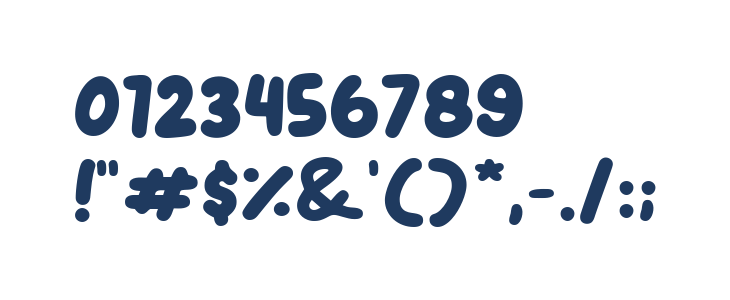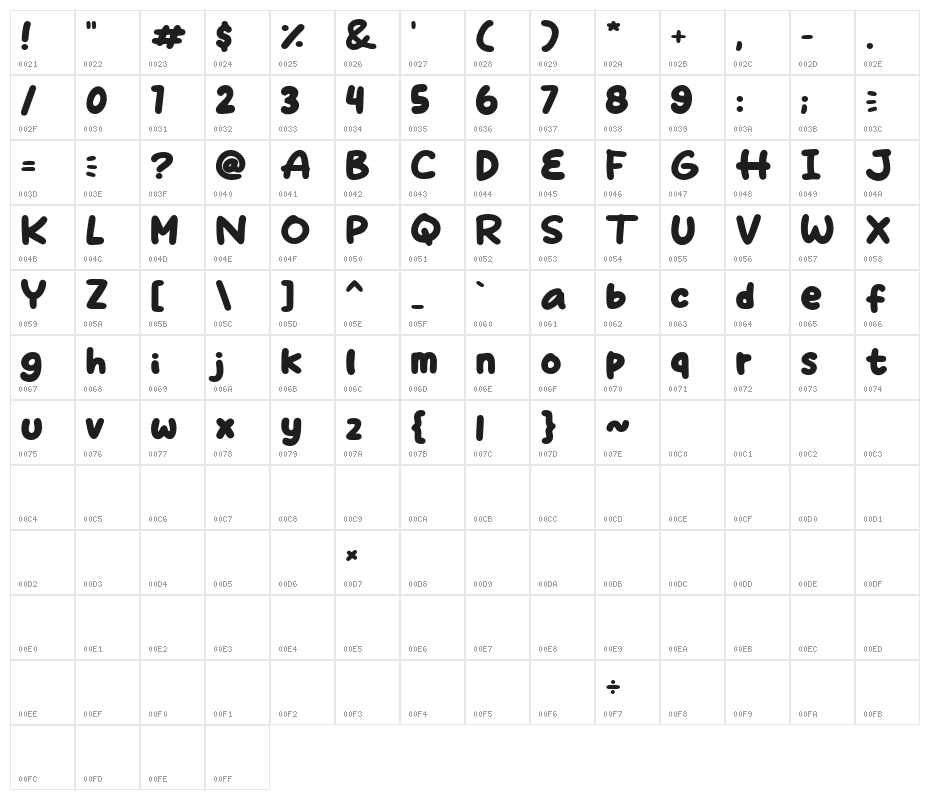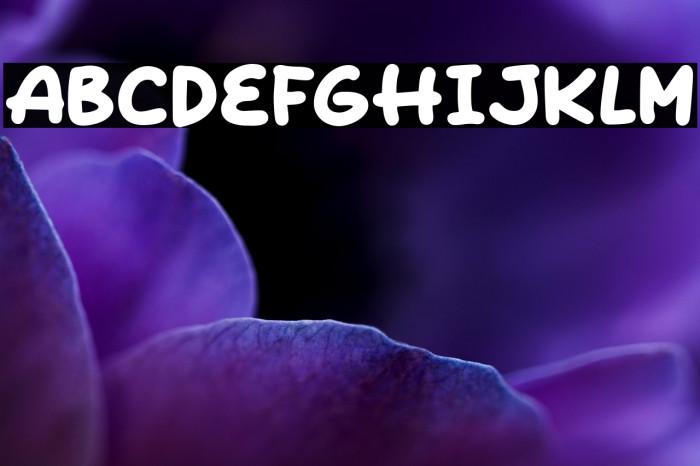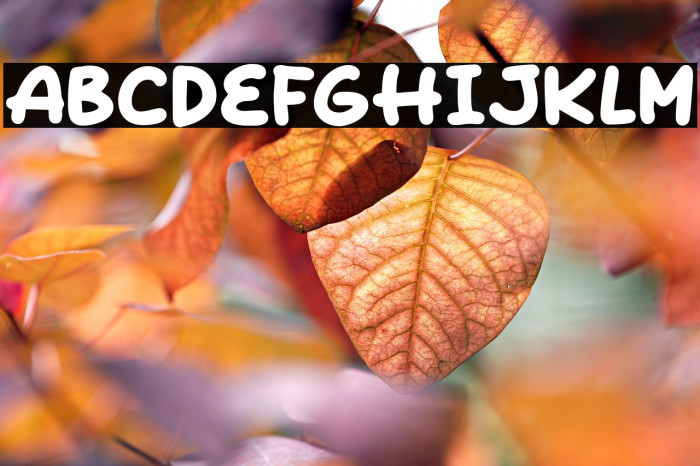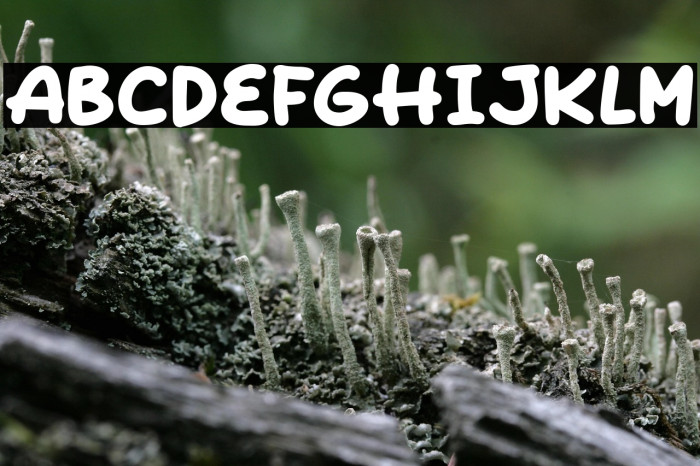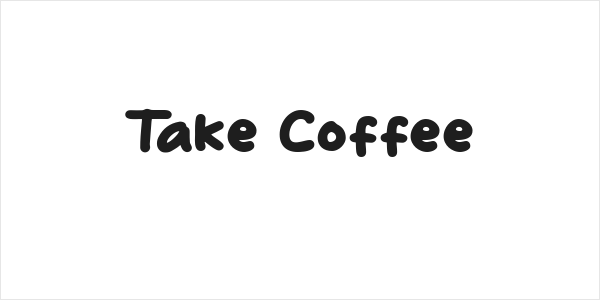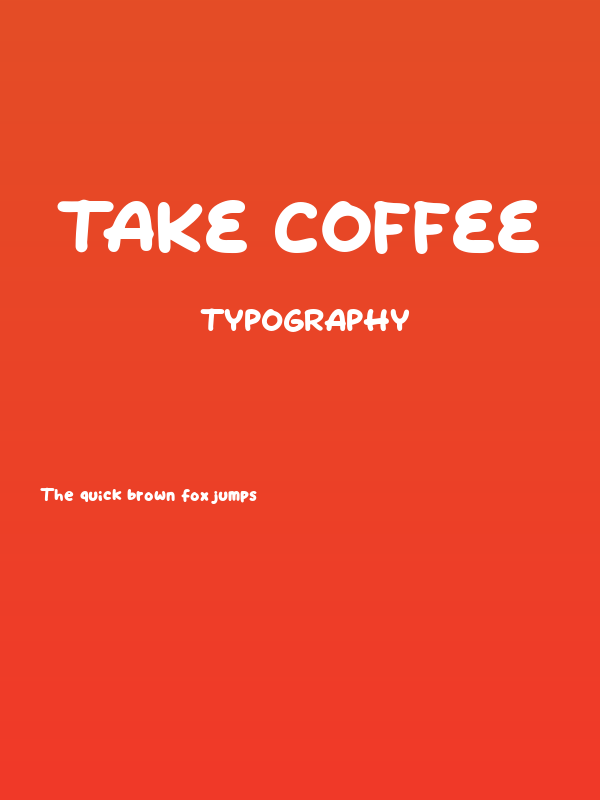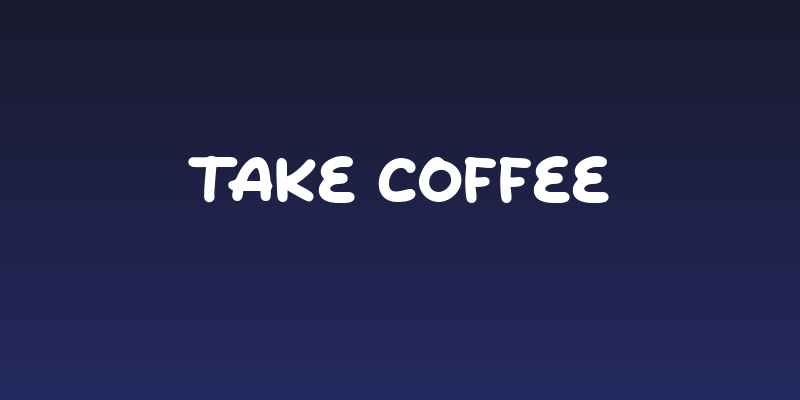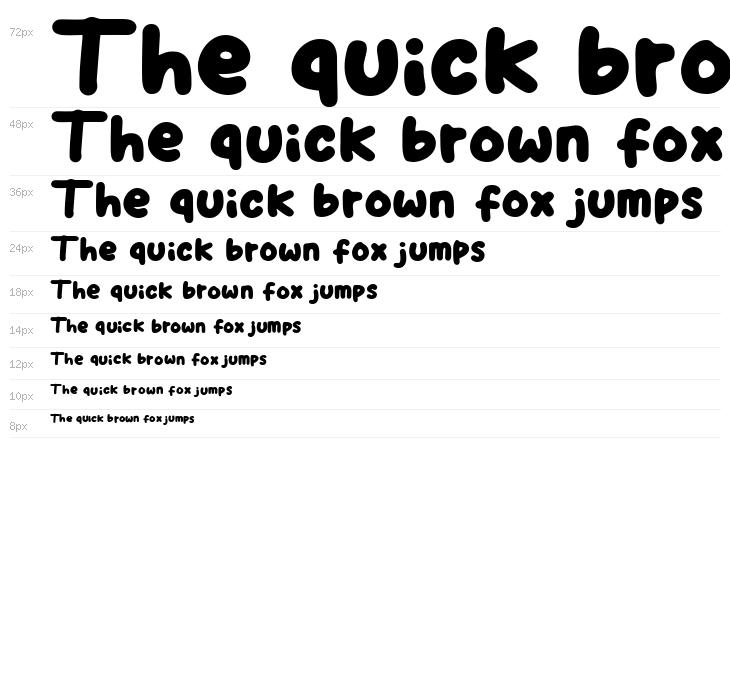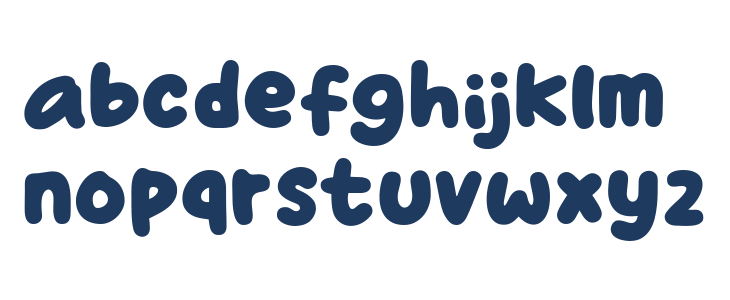
Take Coffee Font
Take Coffee Description
This playful and bold font features rounded, bubbly characters that exude a sense of fun and approachability. The letters are thick and have a consistent stroke width, giving them a uniform appearance. The overall style is casual and friendly, making it suitable for informal and lighthearted projects. The font's rounded edges and lack of sharp angles contribute to its soft and inviting look. It includes a full set of uppercase and lowercase letters, numbers, and a variety of special characters, ensuring versatility in use.
Overall StylePlayful
Proposed ProjectsIdeal for children's books, playful branding, party invitations, and casual social media graphics.